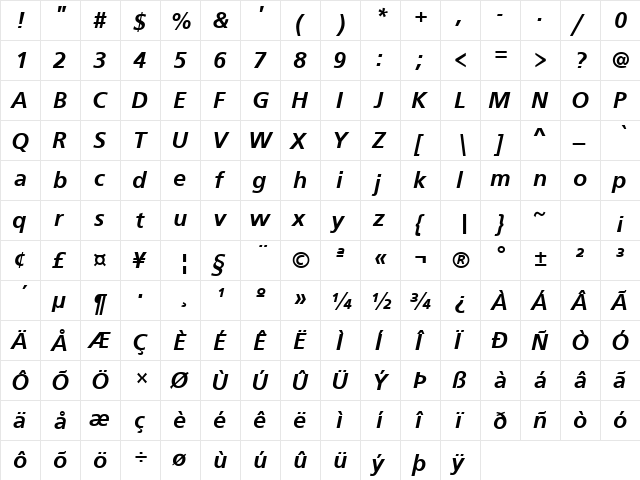
Frugal Sans Bold Italic
Design Context for Frugal Sans Typeface
Frugal Sans takes a measured approach to typography — its balanced proportions and neutral character make it a reliable workhorse for both digital and print work. The slanted form adds forward momentum and visual energy. The heavy weight commands attention and anchors typographic hierarchies.
Pro Tip: Use Frugal Sans for emphasis, pull quotes, and subheadings where its slanted energy can add rhythm to the layout.